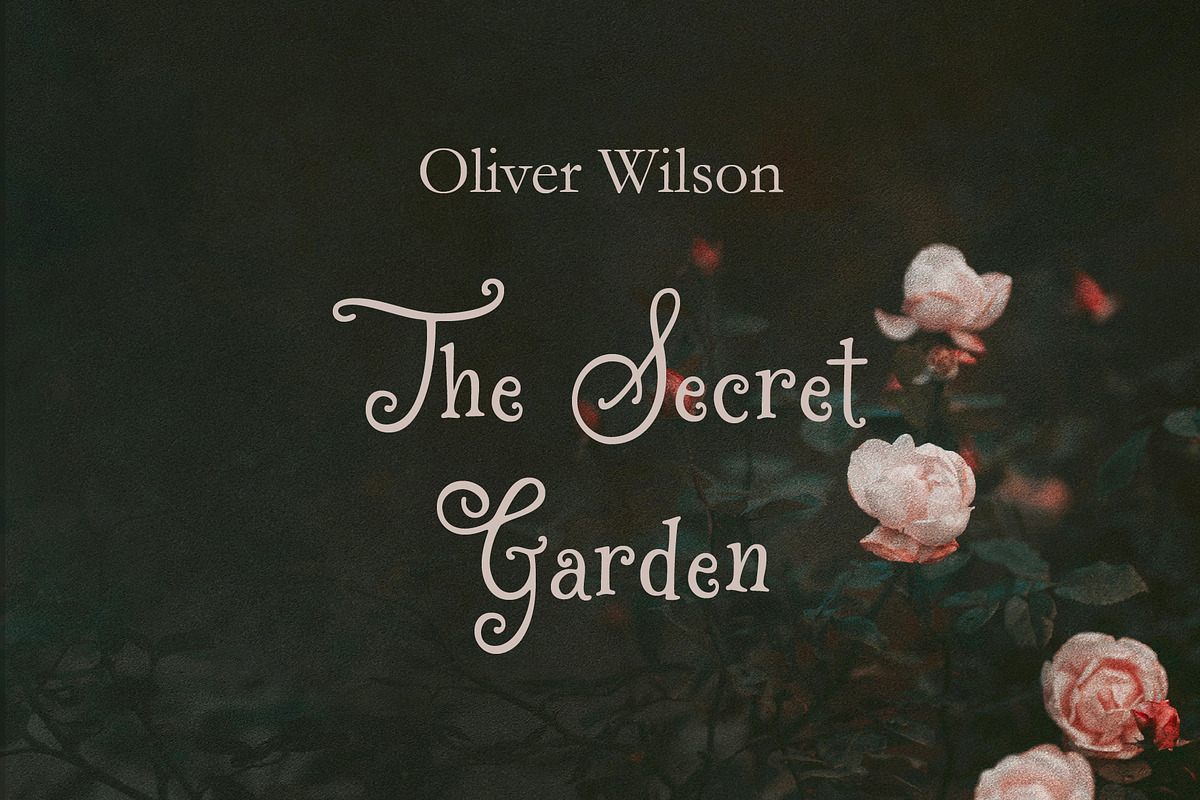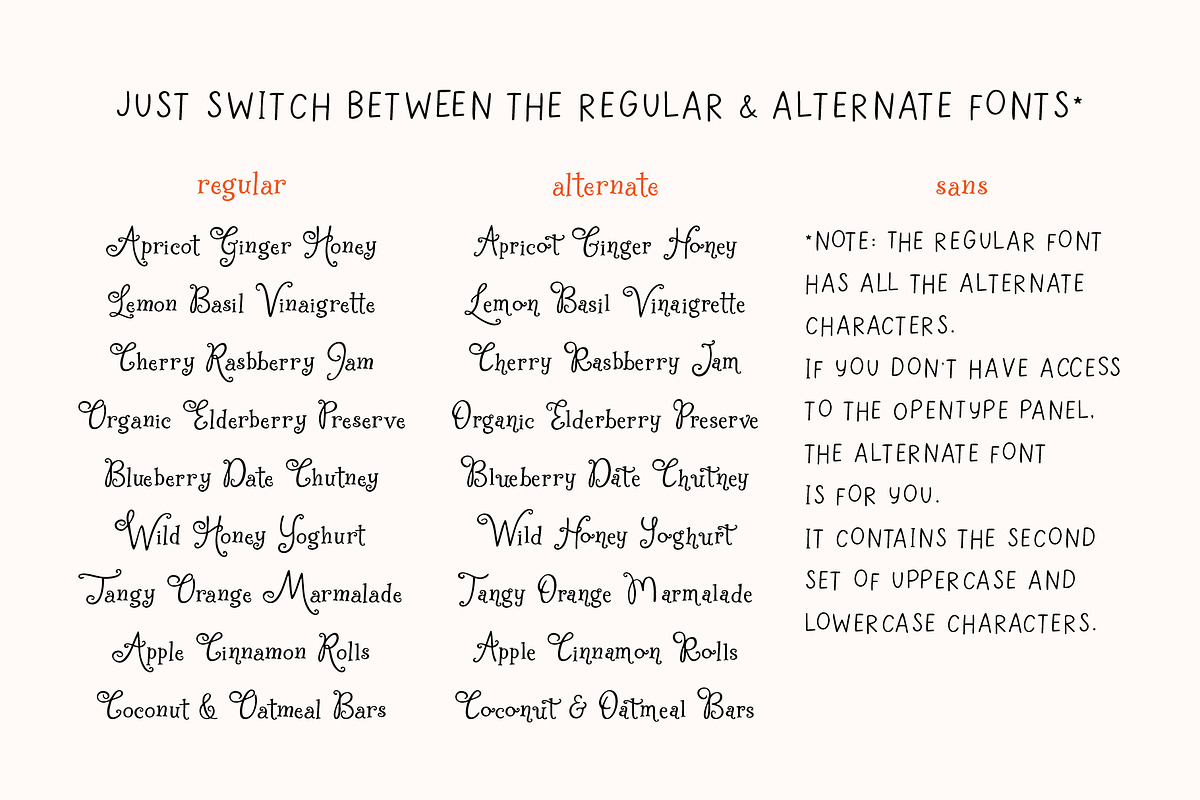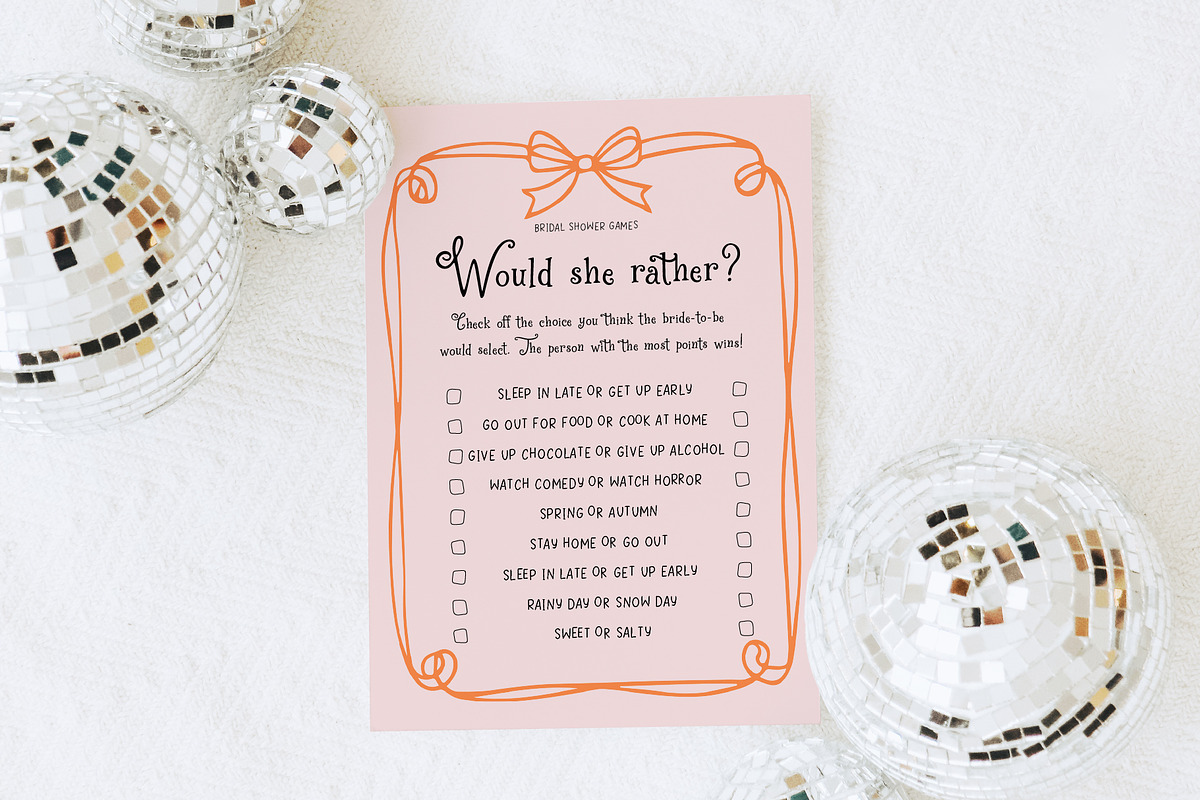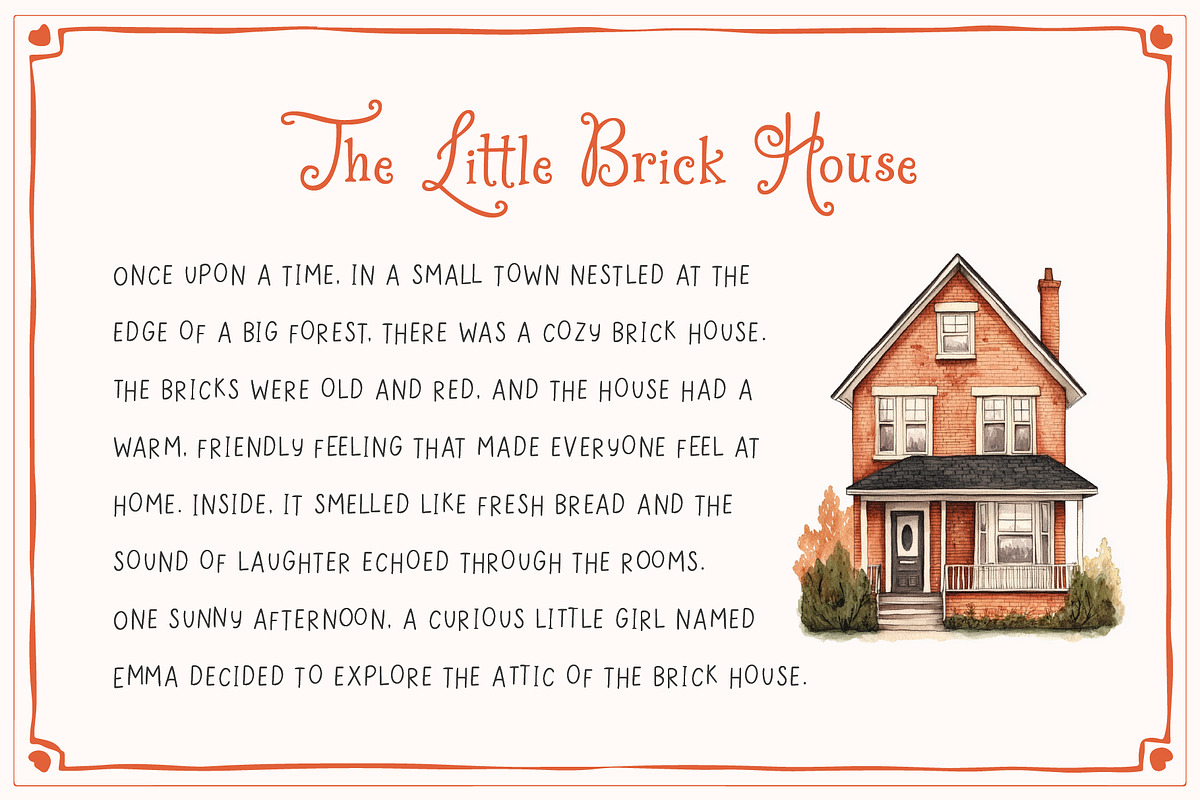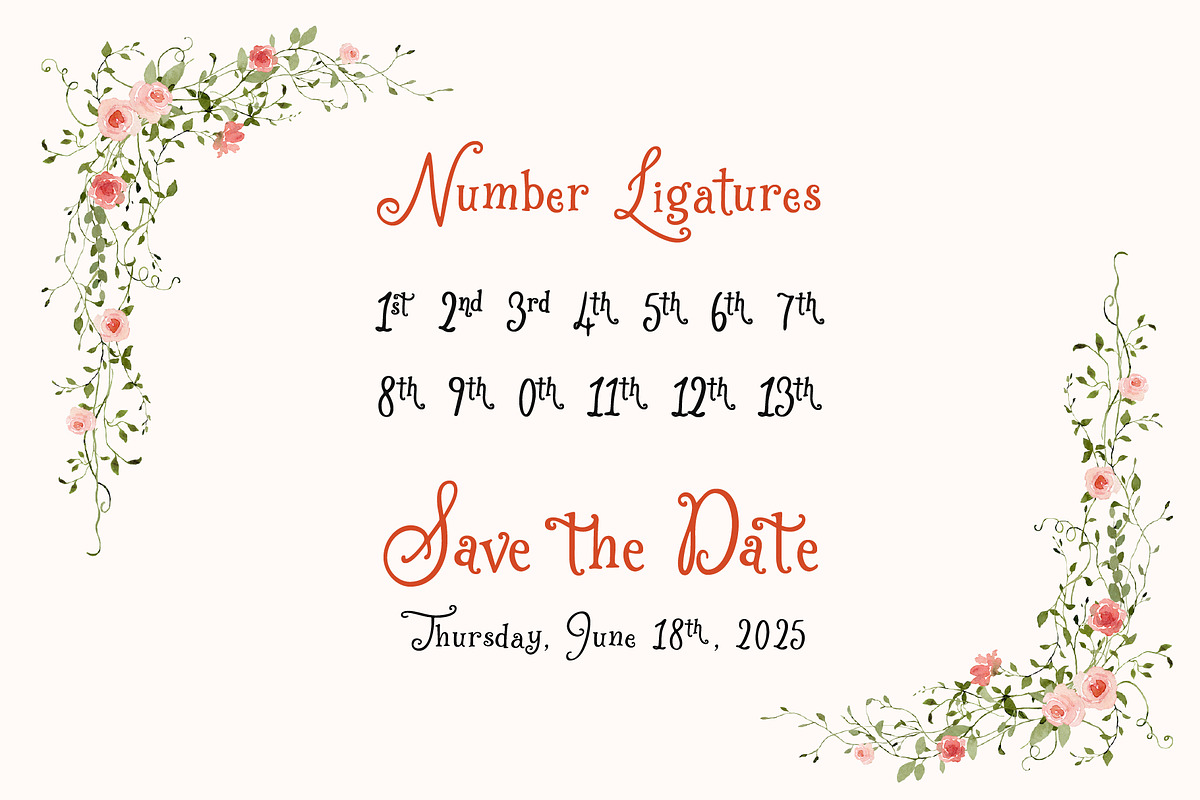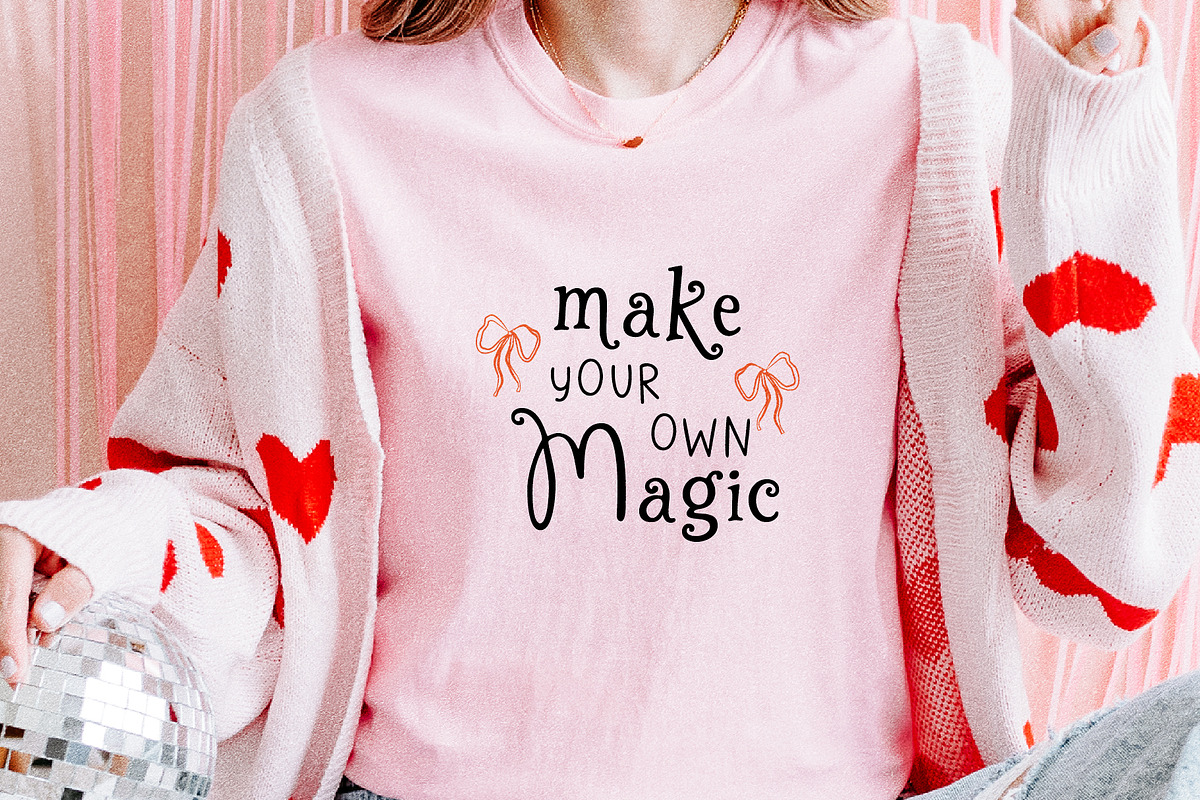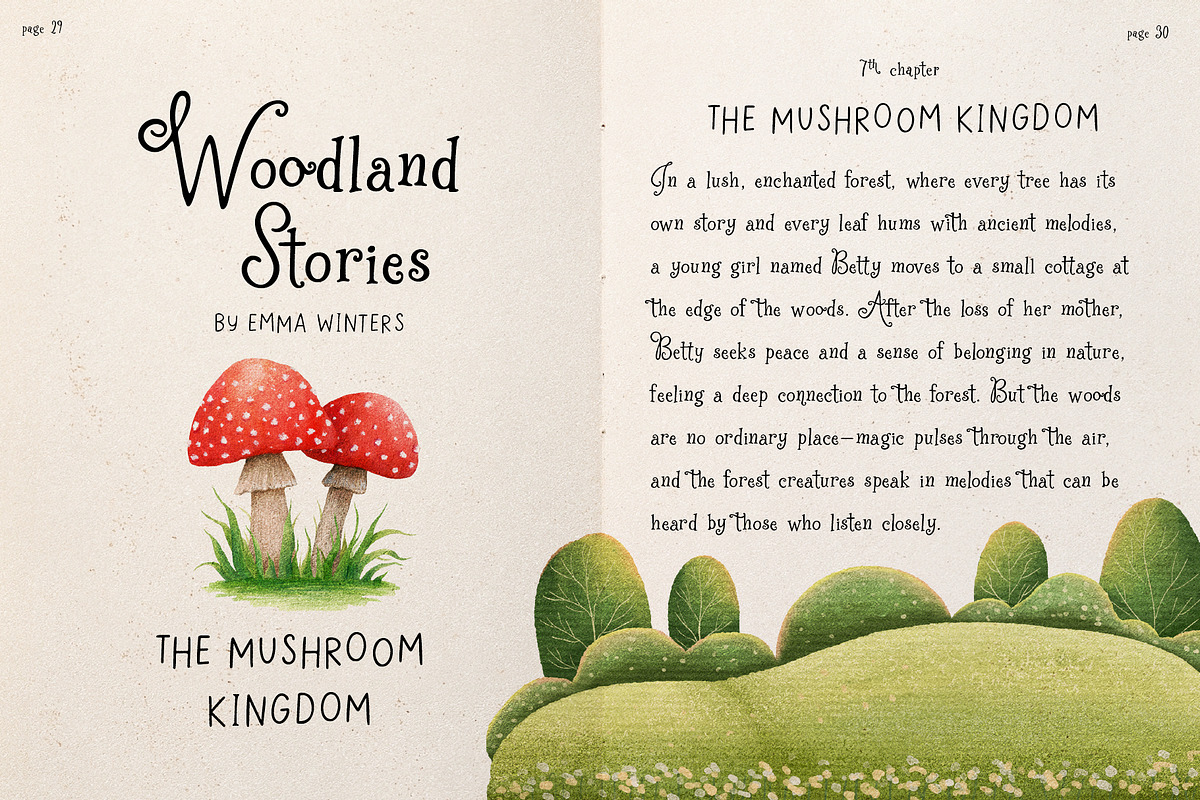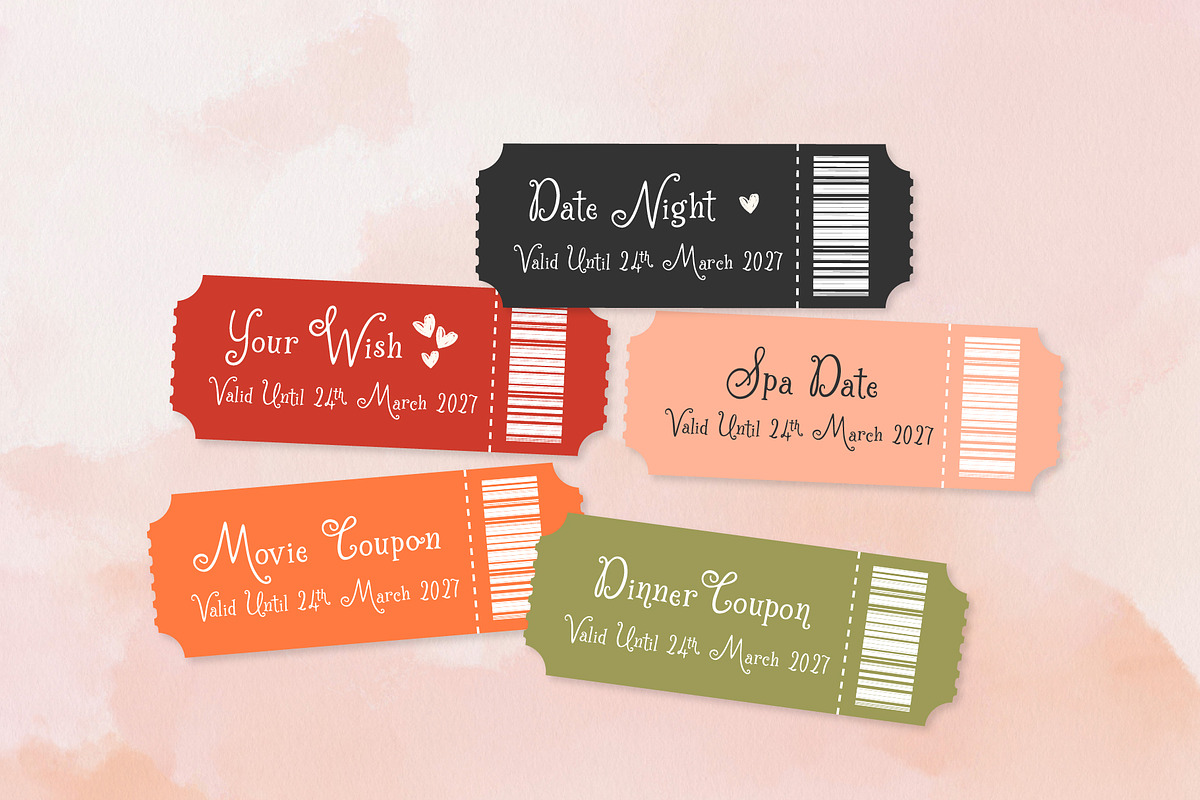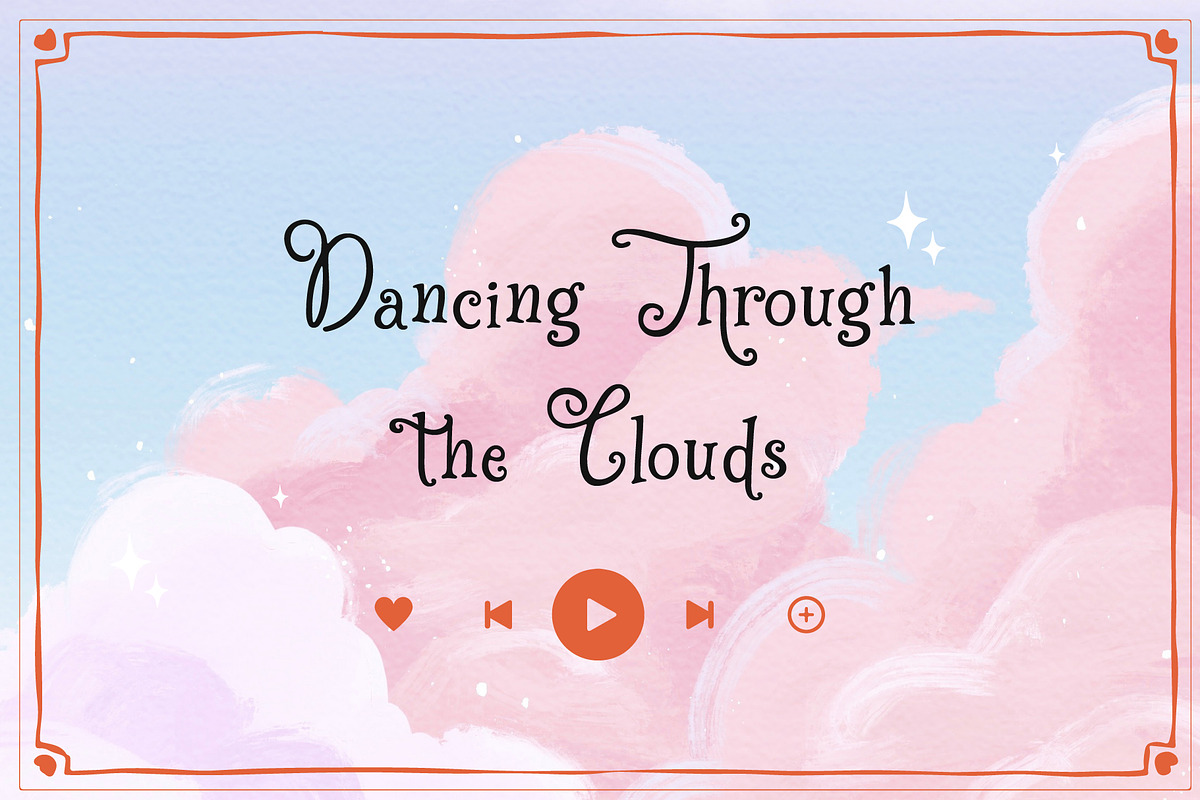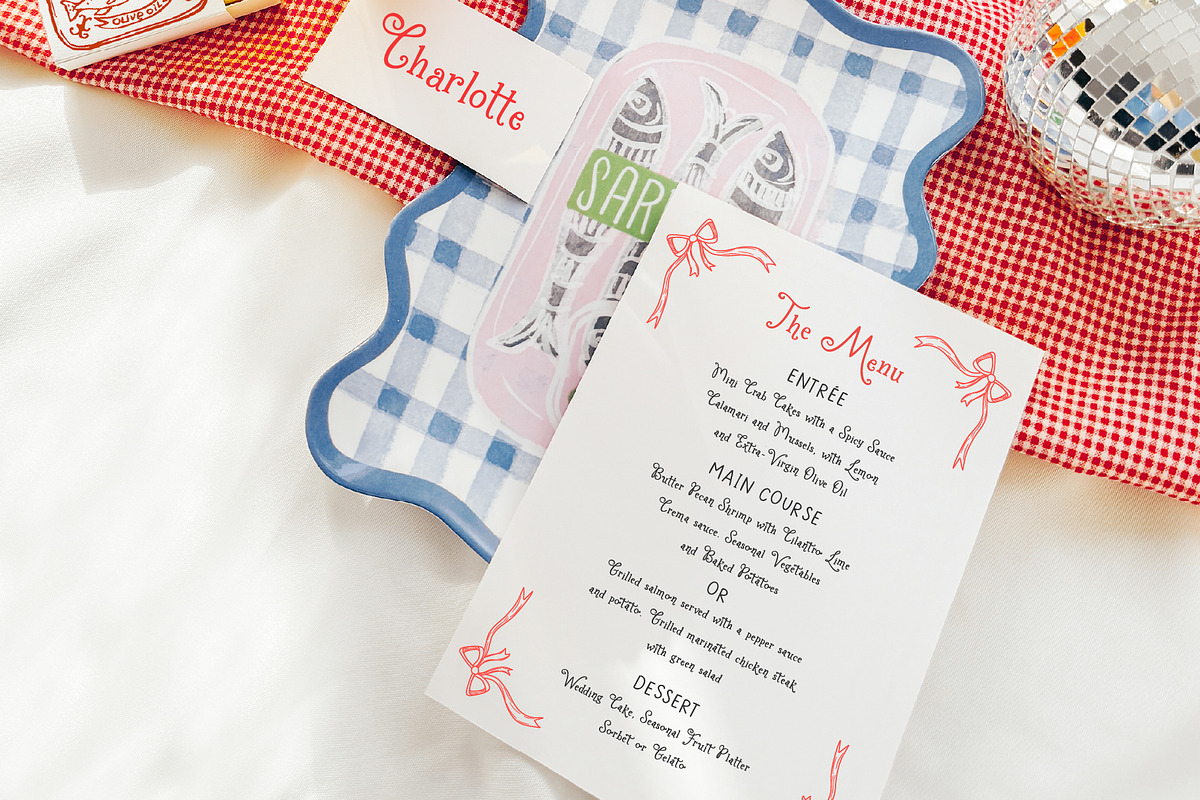
Apricot Ginger Honey Whimsy Font Duo
Excited to introduce Apricot Ginger Honey, where script and serif fonts come together in perfect harmony! This playful combination also includes a charming all-caps font, ideal for quotes, illustrations, and adding a little extra flair to any design. It’s the perfect choice for bringing your creative projects to life! Whether you're designing invitations, greeting cards, logos, branding, social media posts, printed goods, or anything that needs a touch of whimsical charm, Apricot Ginger Honey adds the perfect finishing touch.
Note: The regular font has all the alternate characters. If you don’t have accessto the OpenType panel, the alternate font is for you. It contains the second set of uppercase and lowercase characters.